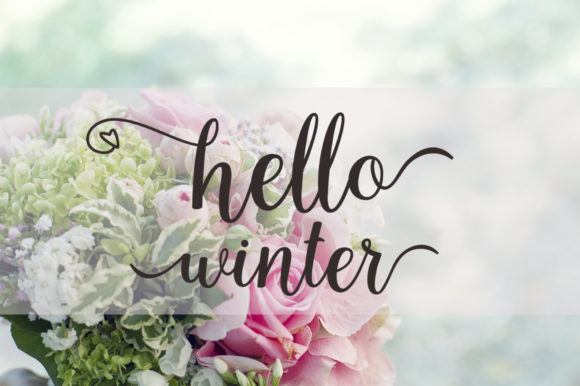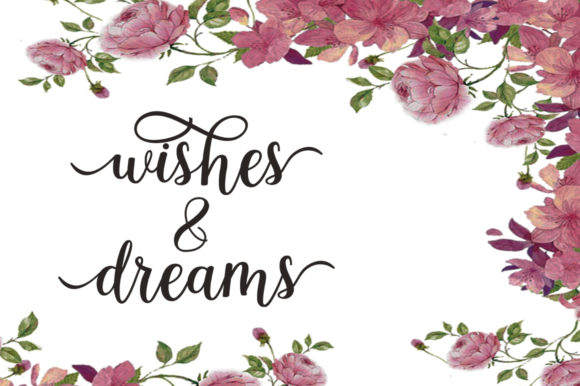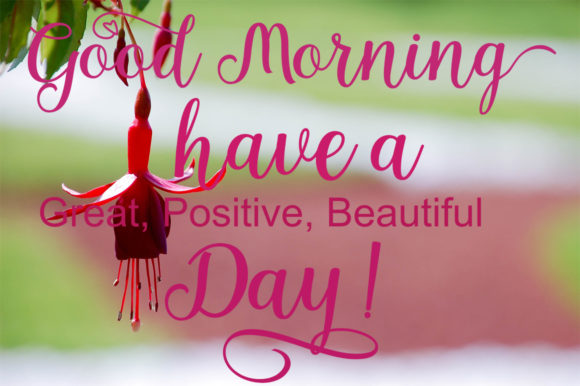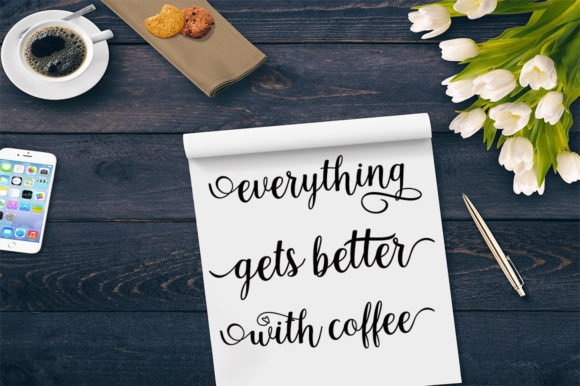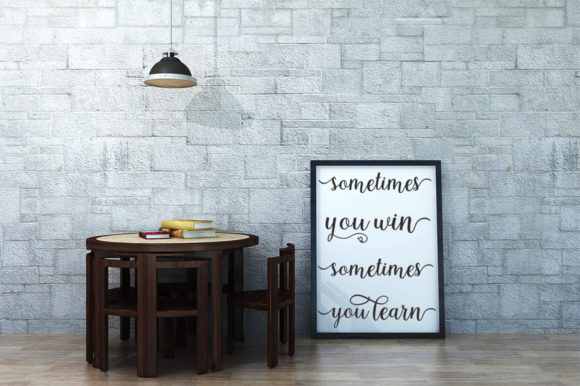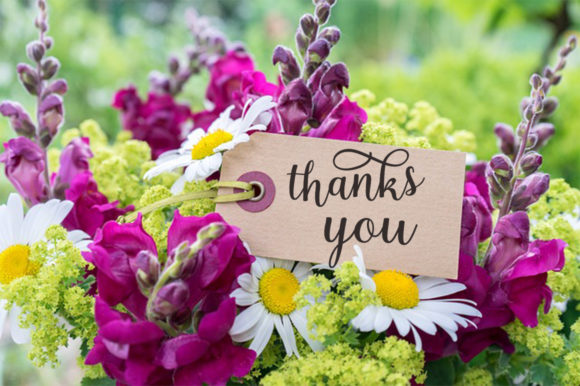
Medicago Font
About Medicago Font
The Medicago is a modern script font with a smooth base line. It has a trendy and feminine style which makes it perfect for adding an elegant feel to your designs.